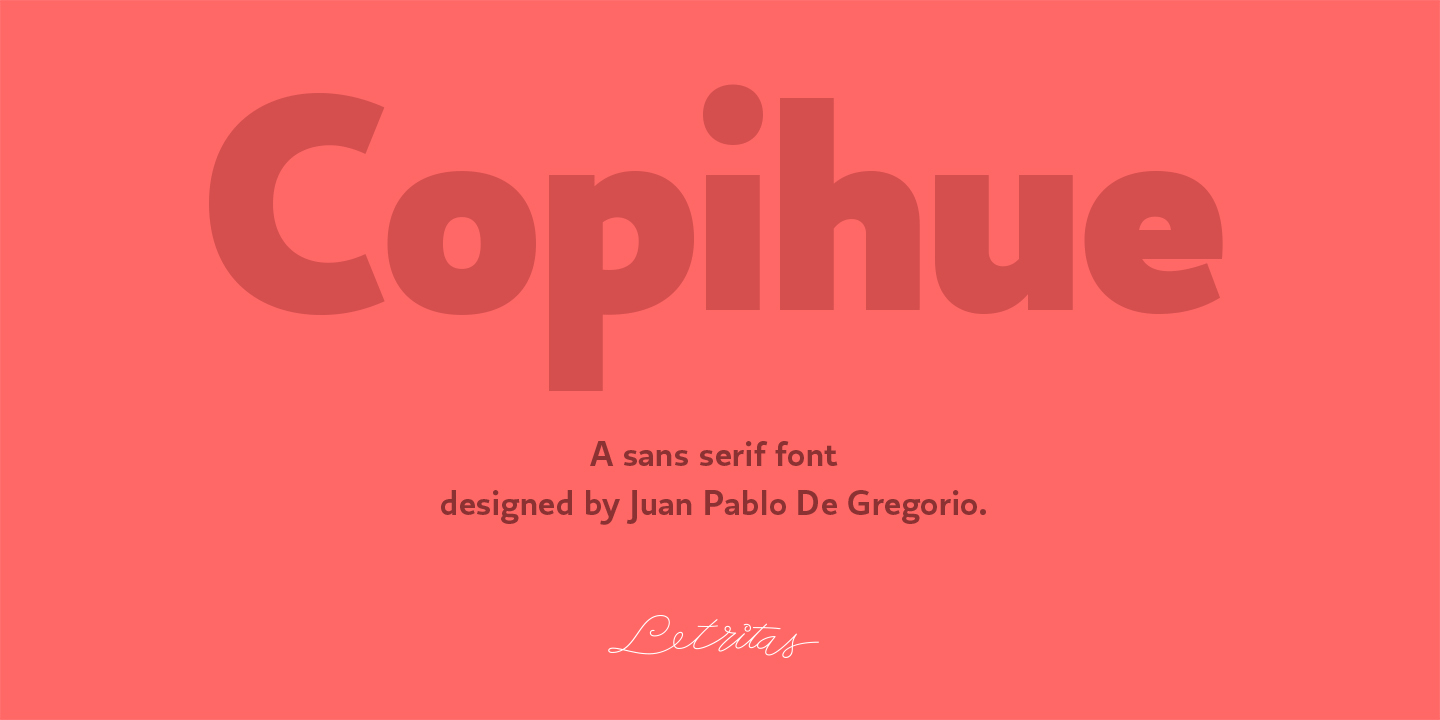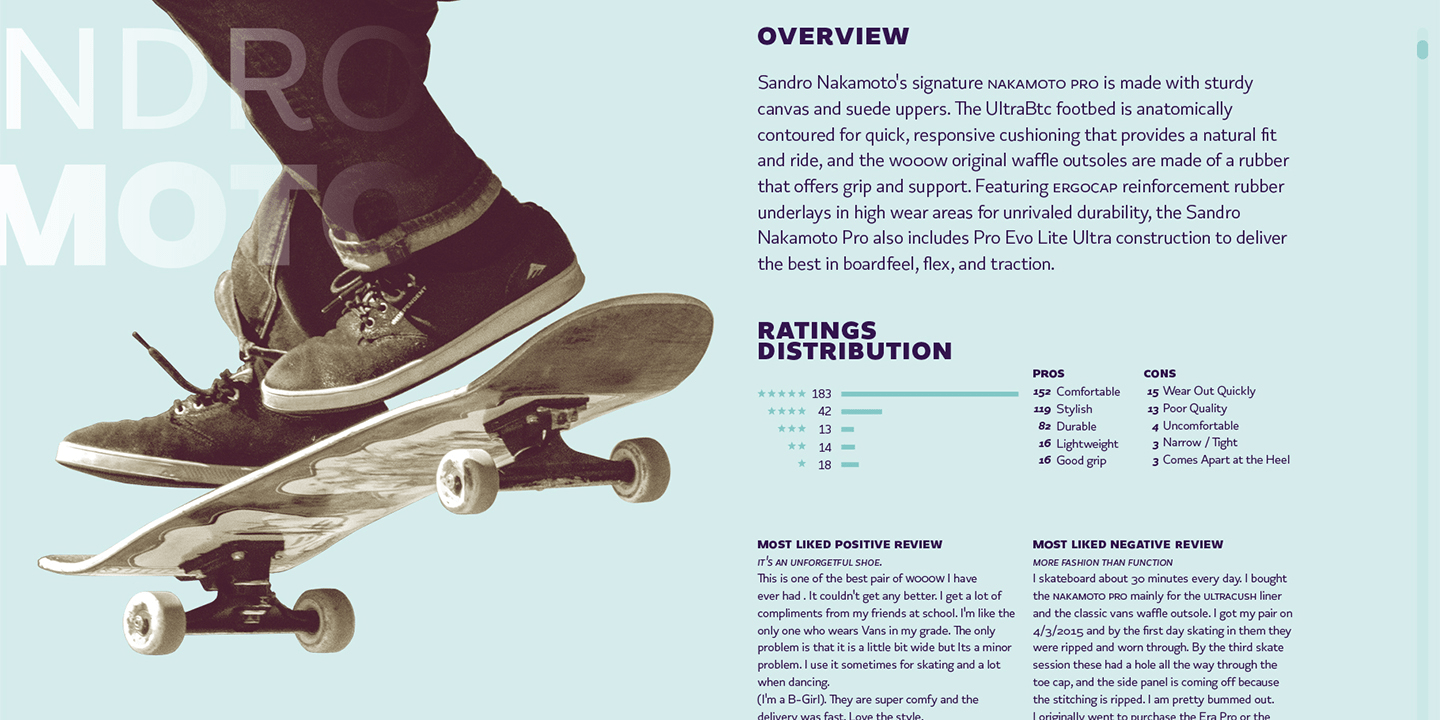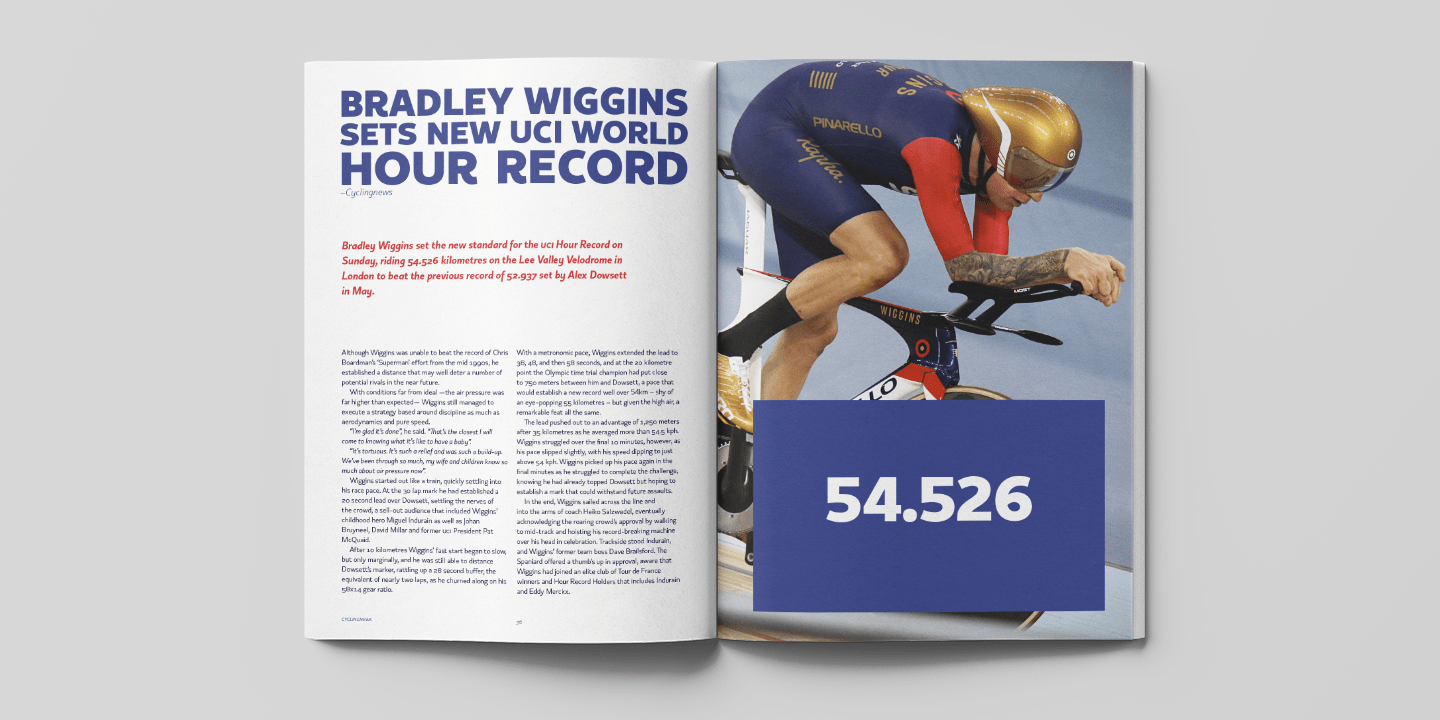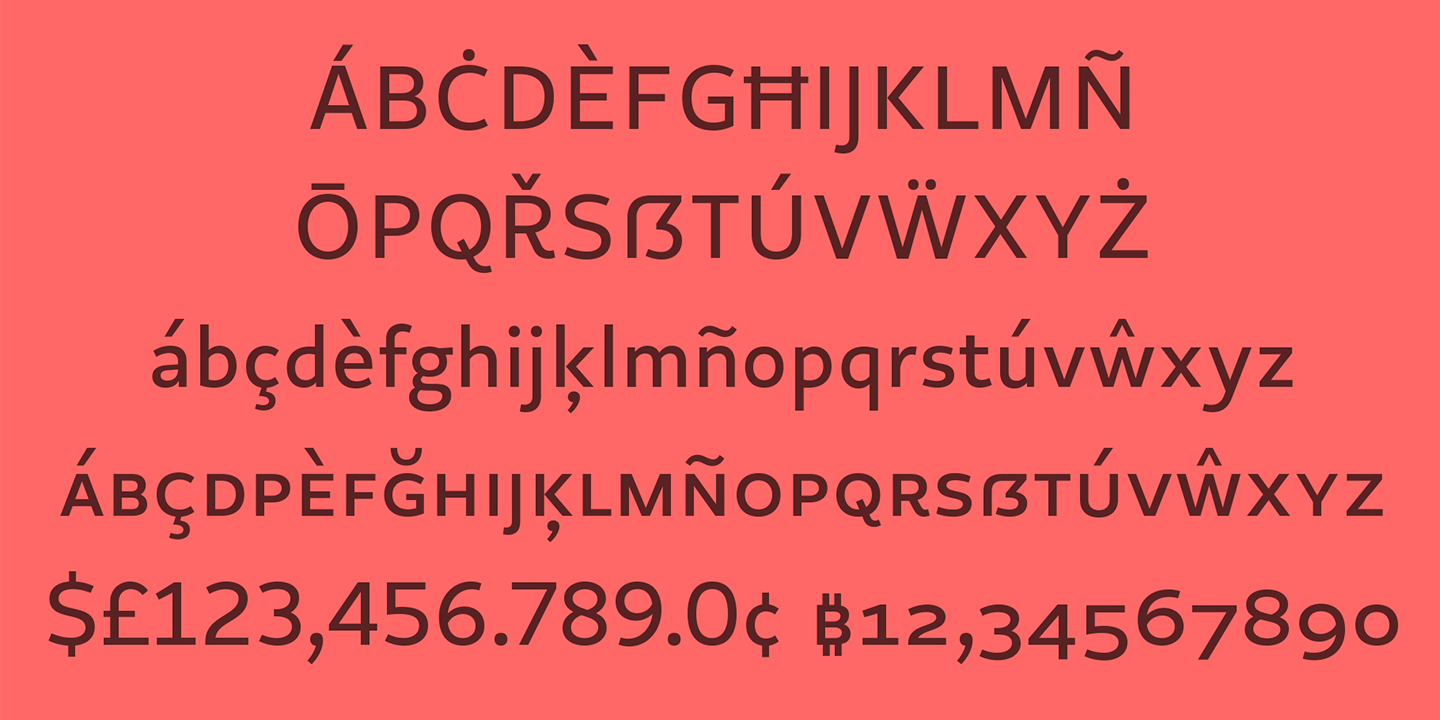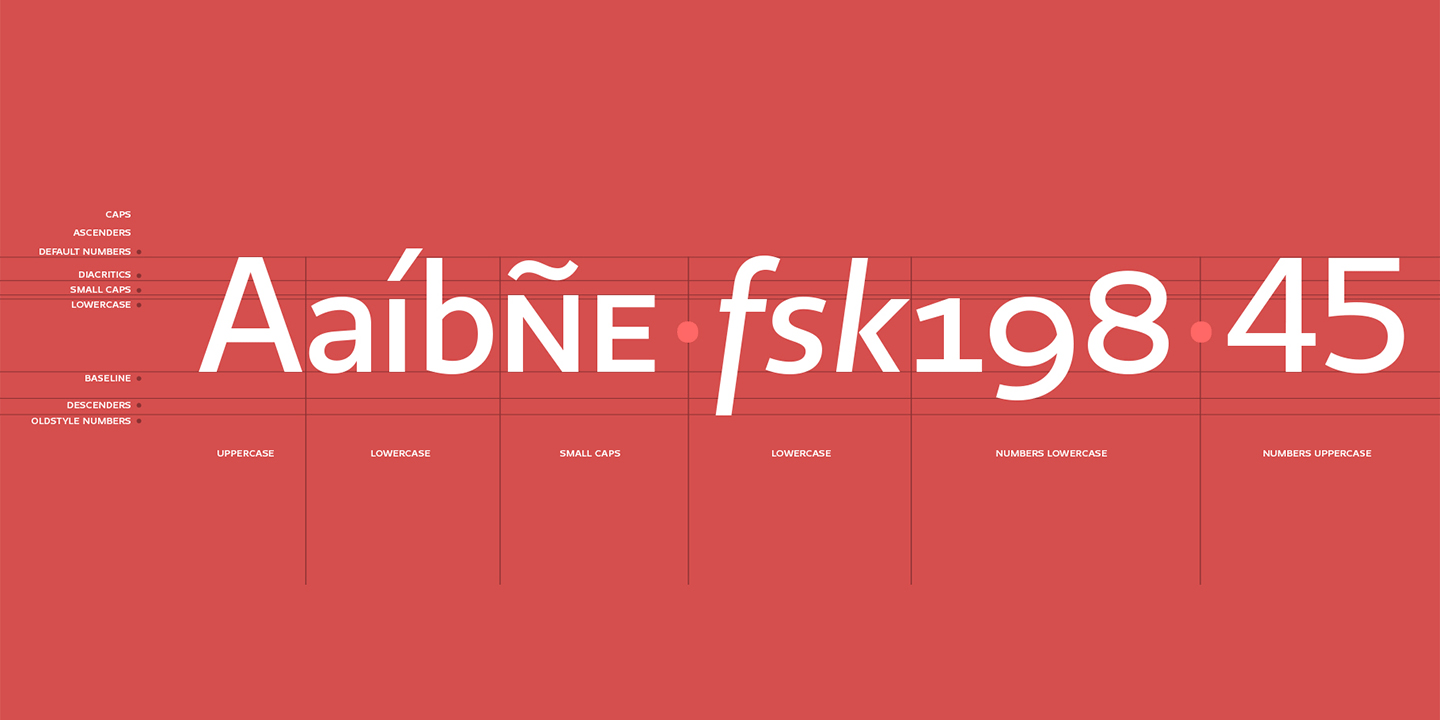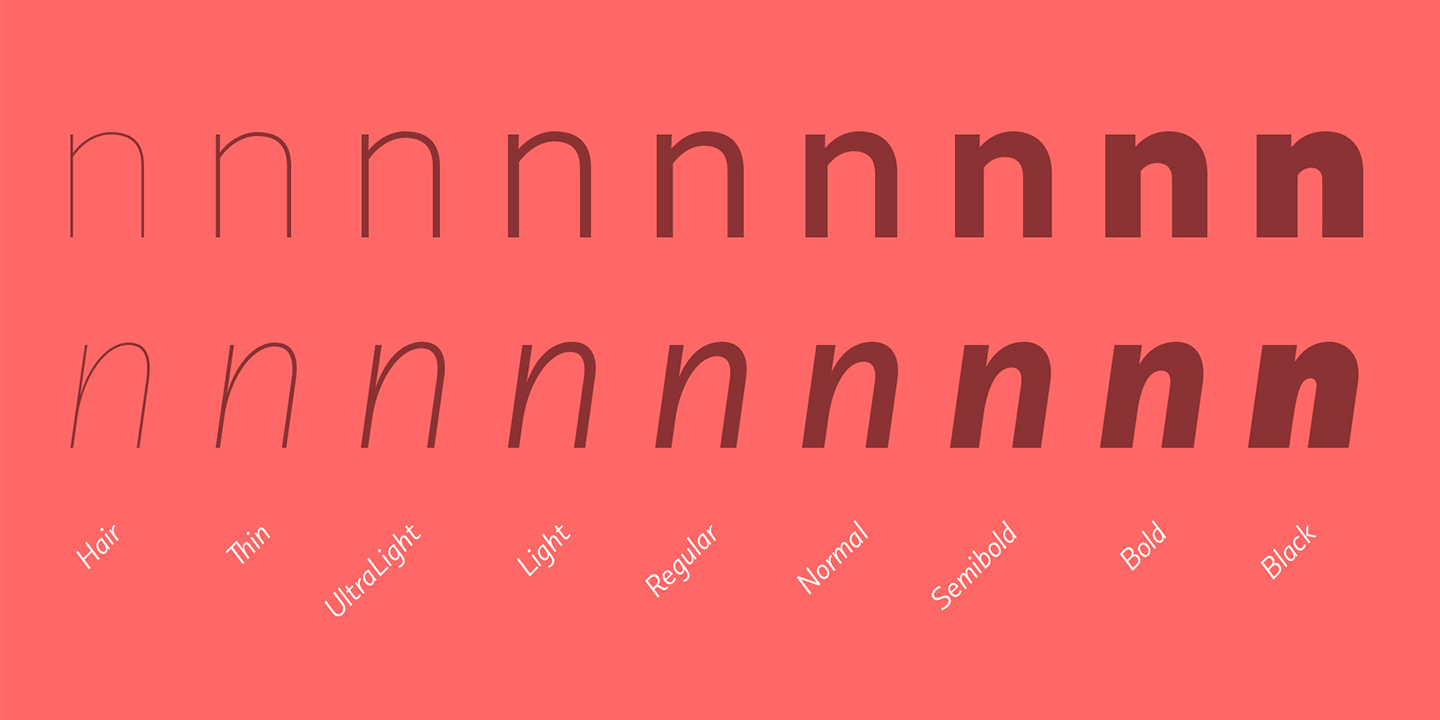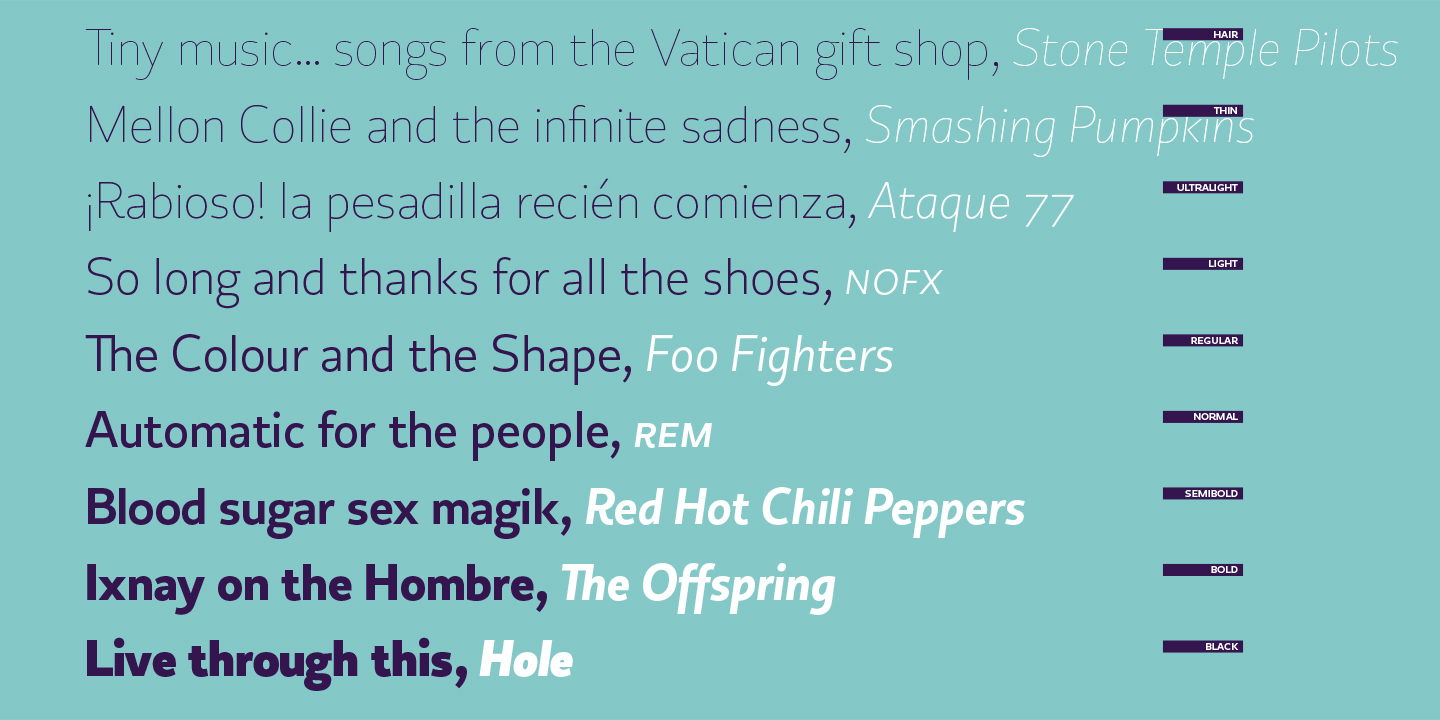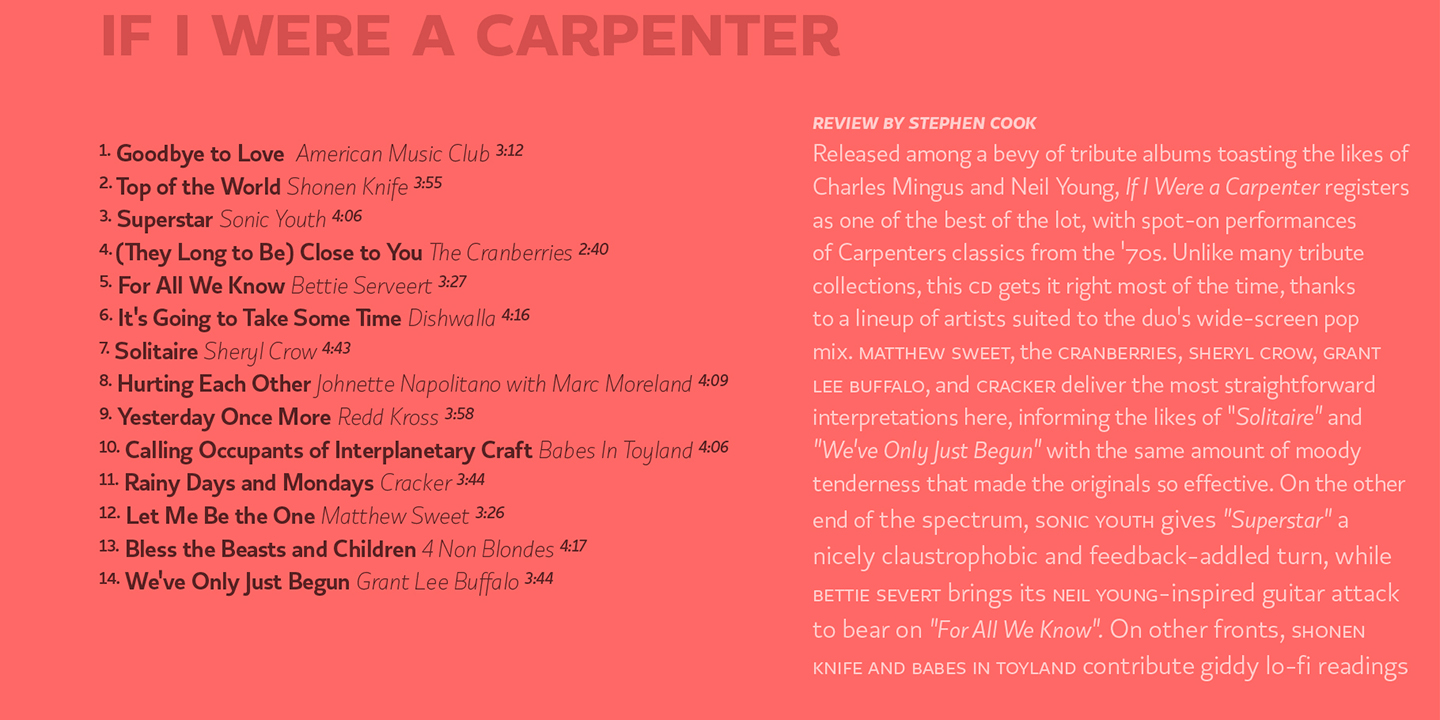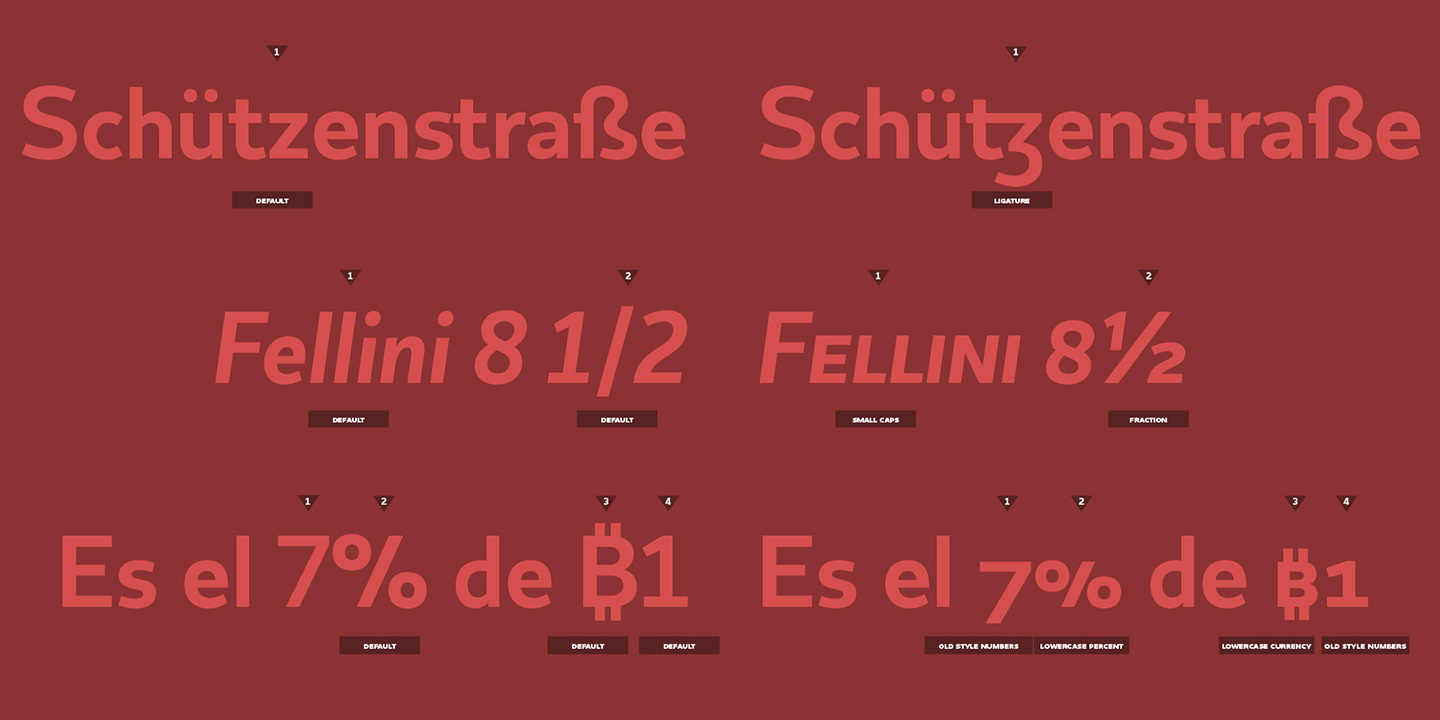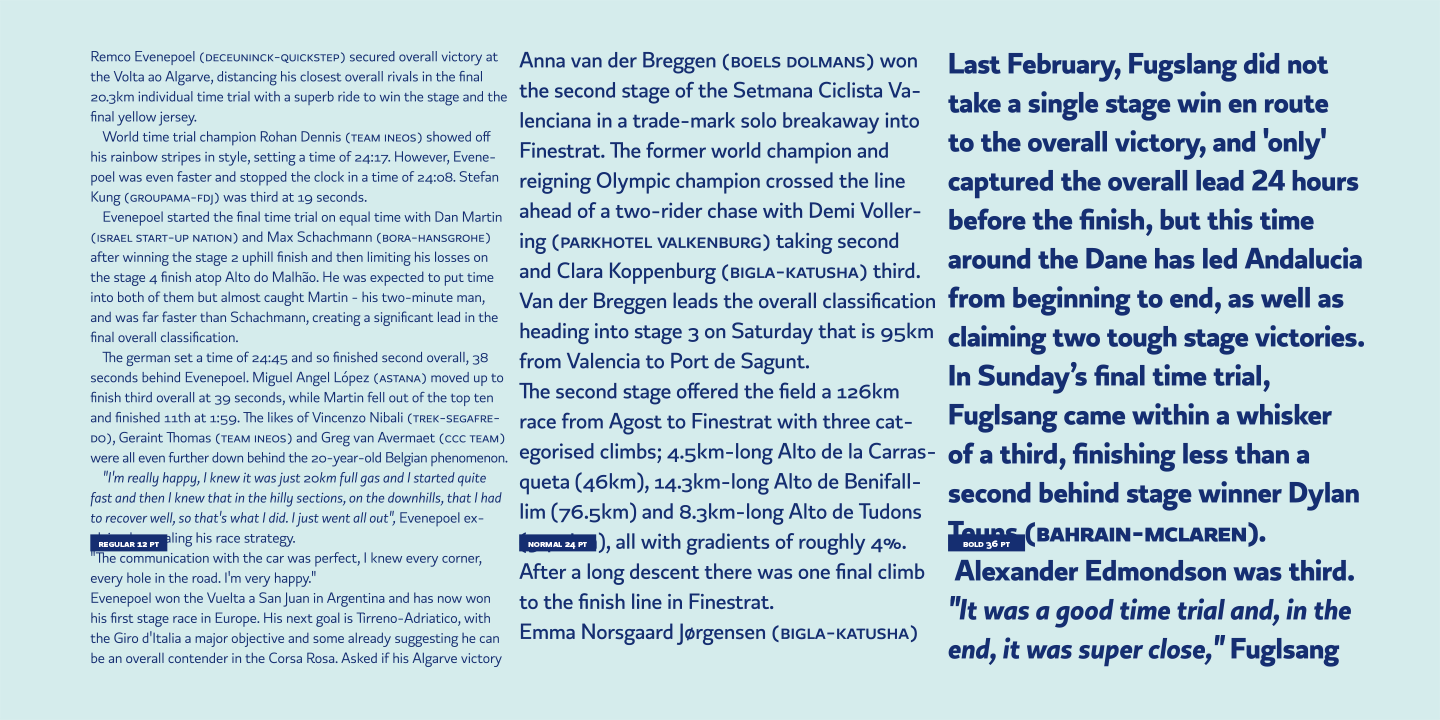
Copihue
Font Family by Letritas
Copihue is the newest font from the foundry of Juan Pablo De Gregorio. A Sans-Serif with some humanist hints, it displays simple and subtle yet sober, vivid strokes. This font’s personality unfolds itself as long as we are reading it.
The aim of Copihue is neither to be as neutral as a grotesque font nor to become as predictable as a fully geometric typeface can be. This typography wants to appeal to the likes of designers who prefer all-rounder fonts, the ones who fit well in most layouts. With this purpose in mind, Juan Pablo studied elements of different typefaces and styles to cast them into Copihue, which boasts a personality that makes it a great fit for different compositions and designs.
Copihue has a slanted version with “real italics”. These italics are slightly more condensed than the regular version, in order to give it a different text texture.
The typeface has 9 weights, ranging from “hair” to “black”, and two versions: “regular” and “italic”. Its 18 files contain 749 characters with ligatures, alternates, small caps, oldstyle and tabular numbers, fractions, and case sensitive figures. It supports 219 Latin-based languages, spanning through 212 different countries.